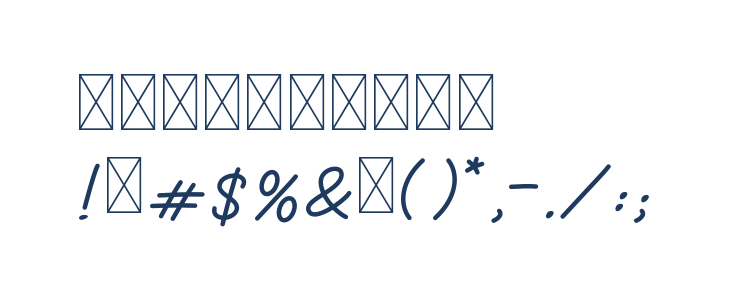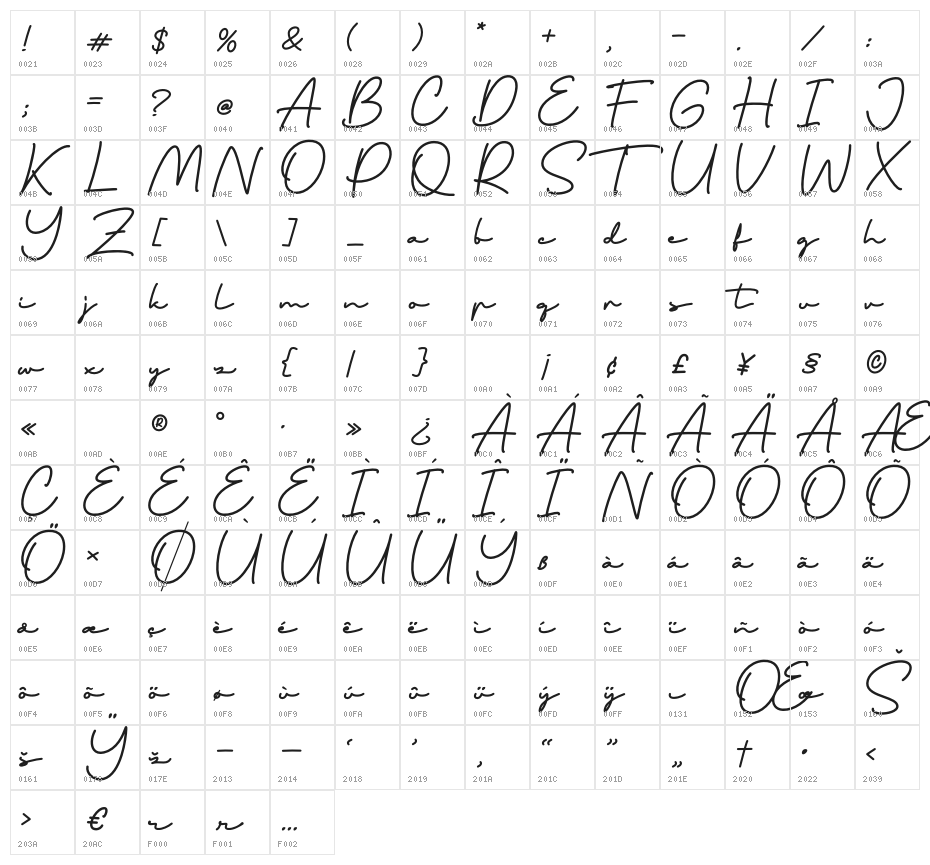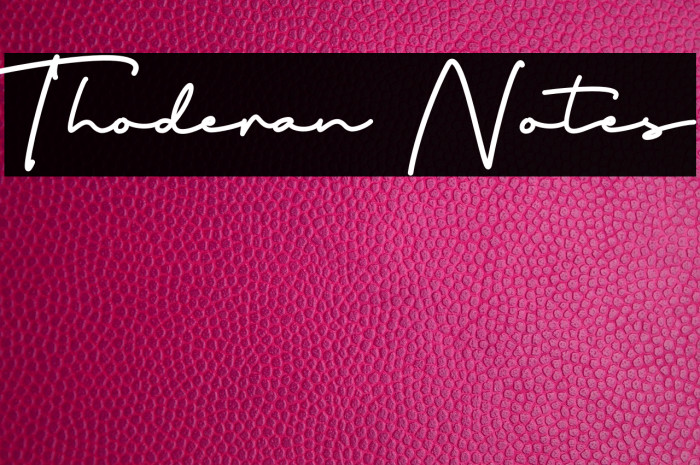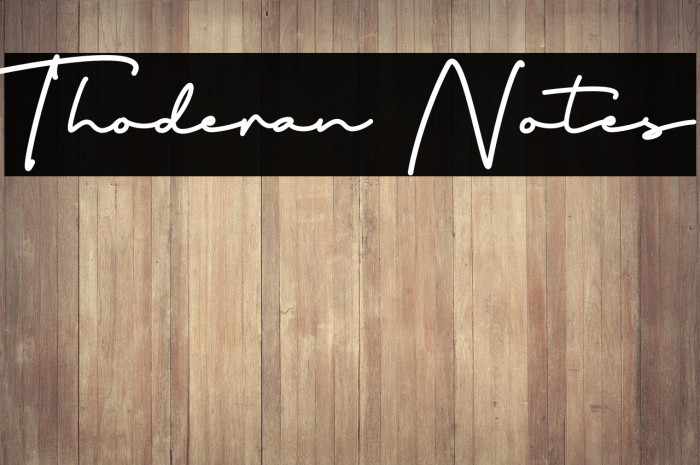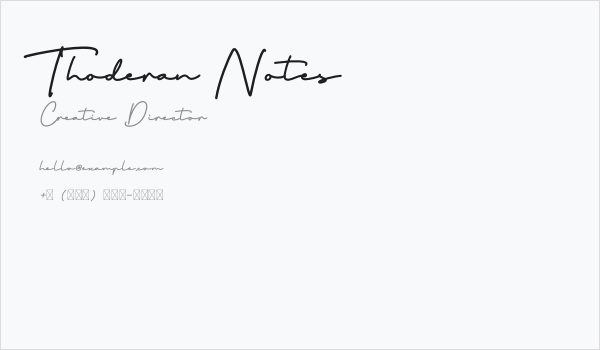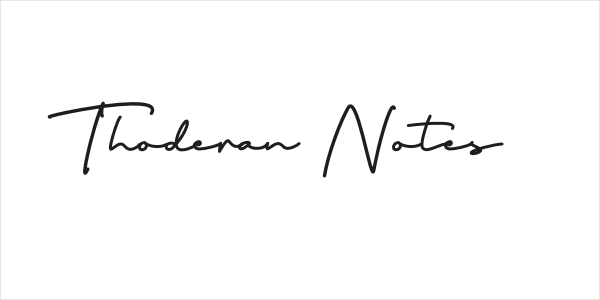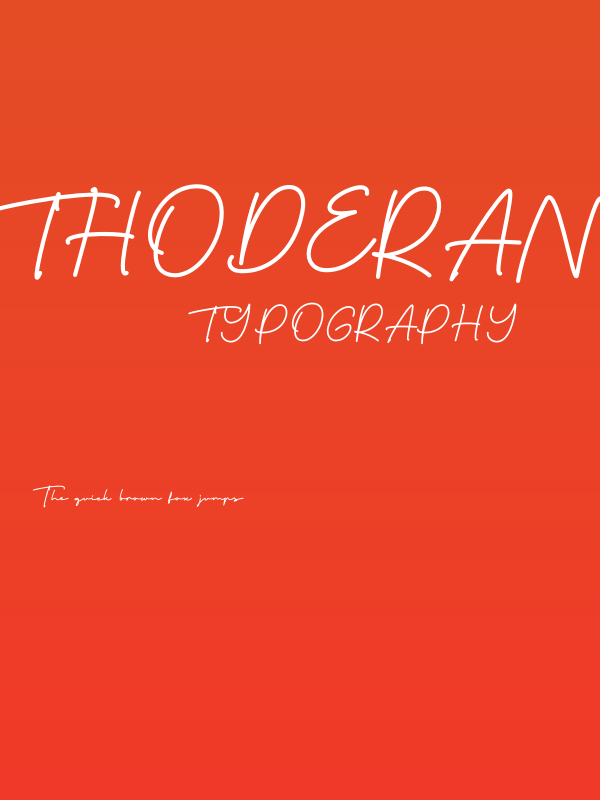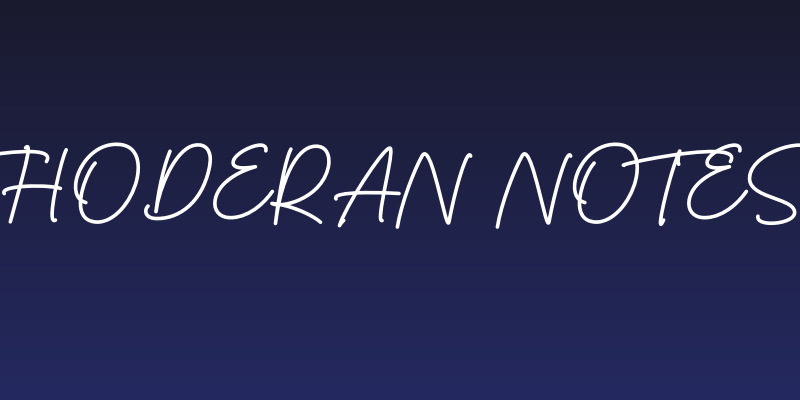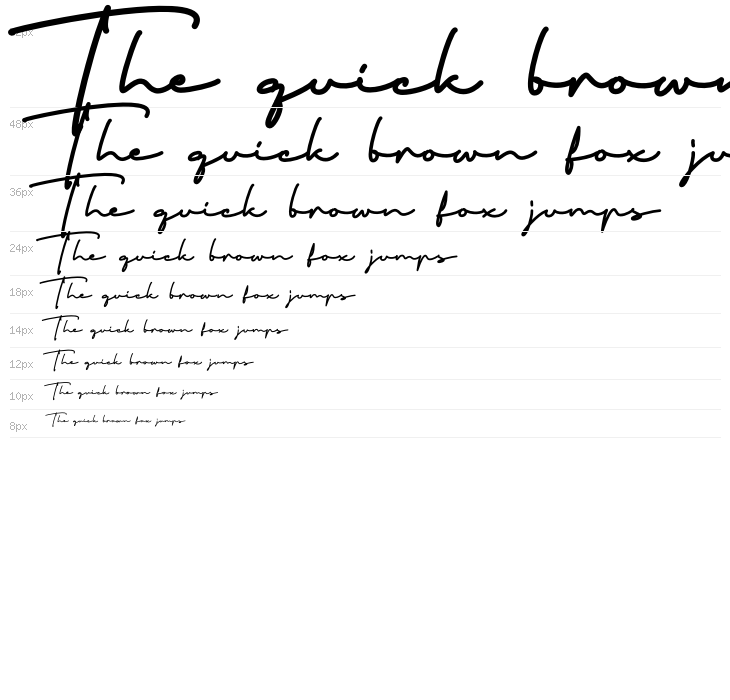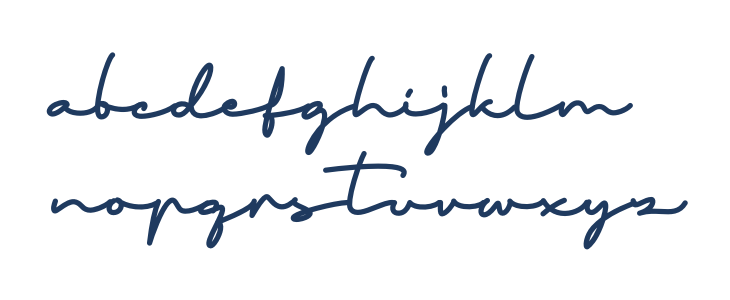
Thoderan Notes Font
Thoderan Notes Description
This font features a dynamic and fluid script style, characterized by its elegant and flowing letterforms. The uppercase letters are slightly slanted, giving a sense of motion and grace, while the lowercase letters maintain a consistent and harmonious flow. The strokes are smooth and continuous, creating a cohesive and connected appearance. The special characters are designed to complement the overall style, with a playful yet sophisticated touch. This font is ideal for projects that require a personal and artistic touch, such as invitations, greeting cards, and branding materials.
| Overall Style | Elegant and Artistic |
| Use Case | Headlines, Artistic projects, Invitations |
| Proposed Projects | Ideal for invitations, greeting cards, branding, and artistic projects. |